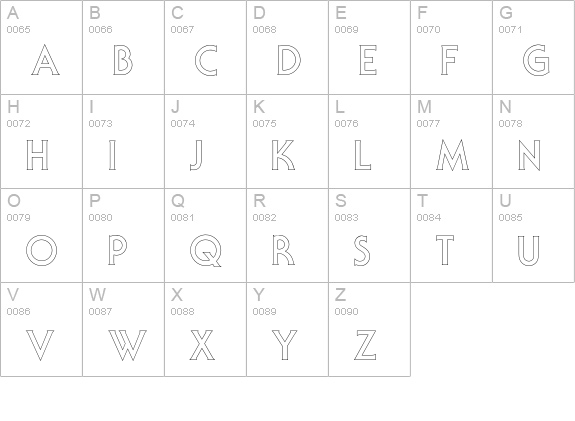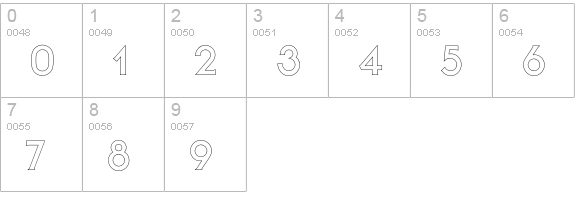
SerifGothicOutline Font Details
SerifGothicOutline is a captivating font that effortlessly merges the elegance of serif typefaces with the boldness of gothic styles. Perfectly suited for a wide range of creative projects, this font exudes a sense of sophistication and edginess that is sure to make a lasting impression. The unique outline design of SerifGothicOutline adds a dynamic touch to any text, making it stand out and grab attention. Whether used for headlines, logos, or print materials, this font adds a touch of artistic flair that is hard to ignore. One of the most appealing aspects of SerifGothicOutline is that it is completely free. Yes, you read that right – this remarkable font can be downloaded at absolutely no cost from FontsMarket.com. This means that you can add this stunning font to your collection without breaking the bank or compromising on quality. Its freely available status does not detract from the exceptional craftsmanship and attention to detail that went into creating SerifGothicOutline. Each letter has been meticulously designed to ensure seamless legibility and visual harmony. The precise curves, sharp angles, and well-defined serifs come together to create a truly captivating font that is both stylish and versatile. SerifGothicOutline is a font that effortlessly bridges the gap between classic and modern design aesthetics. Its timeless appeal makes it suitable for a variety of projects, from vintage-inspired designs to contemporary branding. It is the perfect choice for anyone looking to add a touch of sophistication and uniqueness to their visual creations. So why wait? Take advantage of this incredible opportunity to enhance your design projects with the enchanting SerifGothicOutline font. Download it for free at FontsMarket.com and unlock a world of creative possibilities.